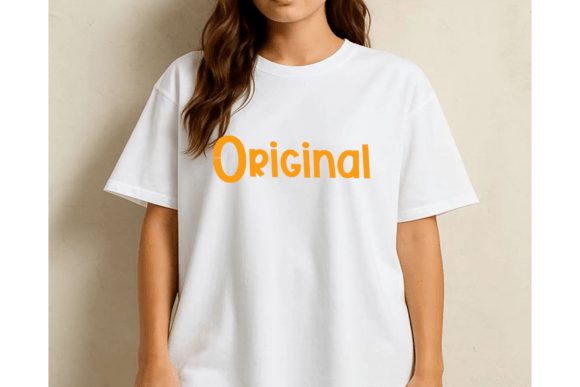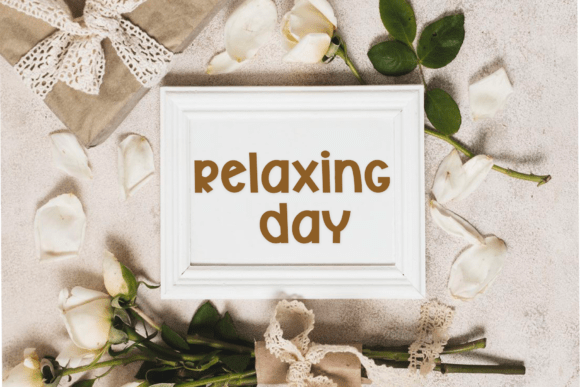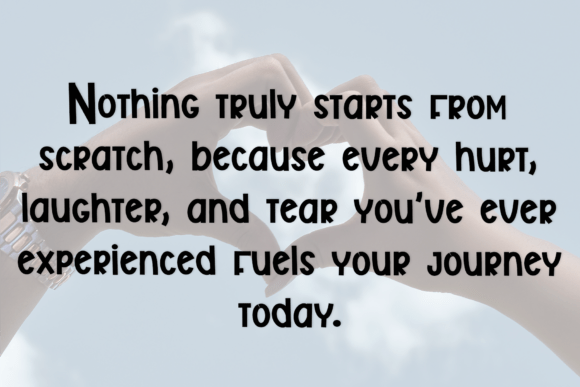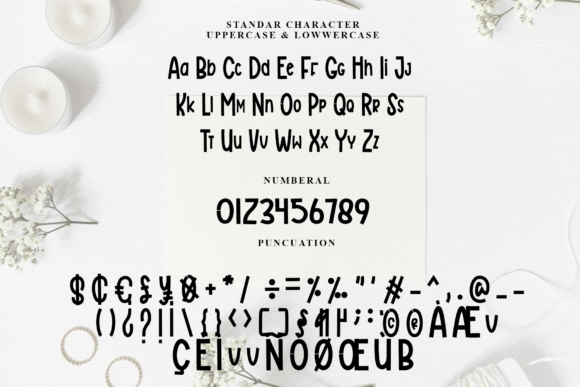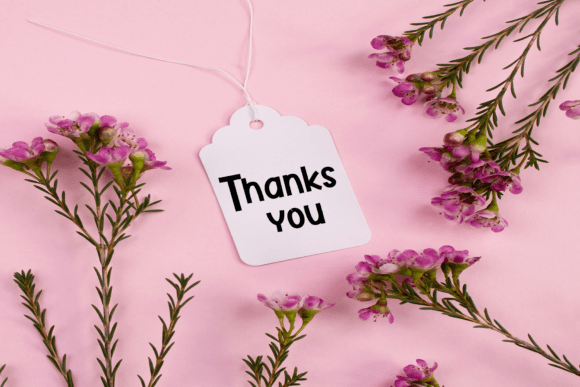
Babyboy Font: The Minimalist’s Dream Come True
In the world of typography, fonts play a crucial role in making or breaking a design. A font can elevate your project from ordinary to extraordinary, and that’s where Babyboy Font comes in. This minimal and neat font is a game-changer for designers and crafters looking to add a touch of simplicity and elegance to their creative projects.
What is Babyboy Font?
Babyboy Font is a modern, sans-serif font that boasts a clean and minimalist aesthetic. Its simplicity makes it incredibly versatile, allowing it to be paired with a wide range of design styles and projects. Whether you’re working on a logo, branding materials, or digital content, Babyboy Font is the perfect choice for those who appreciate the beauty of minimalism.
Key Features of Babyboy Font
- Minimalist Design: Babyboy Font features a sleek and uncluttered design that exudes simplicity and sophistication.
- High Versatility: Its neutral style makes it easy to pair with various design elements, ensuring that your project stands out without overpowering it.
- Excellent Legibility: The font’s clear and concise letters ensure that your text is easy to read, making it perfect for both digital and print materials.
- Wide Range of Applications: From logos and branding to social media graphics and website content, Babyboy Font can be used in an incredibly large set of projects.
Benefits of Using Babyboy Font
So, why should you choose Babyboy Font for your next project? Here are just a few benefits of incorporating this amazing font into your design:
- Enhanced Visual Appeal: Babyboy Font adds a touch of modernity and sophistication to your design, making it more visually appealing to your audience.
- Improved Brand Consistency: With its clean and minimalist design, Babyboy Font helps to create a consistent brand image that resonates with your target audience.
- Boosted Creativity: The font’s versatility and simplicity make it an excellent choice for creative projects, allowing you to experiment with different design ideas and concepts.
How to Use Babyboy Font in Your Projects
Using Babyboy Font in your projects is easy and straightforward. Here are a few tips to get you started:
- Pair it with Other Fonts: Experiment with different font combinations to create a unique and visually appealing design.
- Adjust Font Sizes: Play with font sizes to create visual hierarchy and emphasize important information.
- Use it in Digital and Print Materials: Babyboy Font is suitable for both digital and print materials, making it a great addition to your design toolkit.
In conclusion, Babyboy Font is a fantastic addition to any designer’s or crafter’s toolkit. Its minimalist design, versatility, and excellent legibility make it perfect for a wide range of projects. Whether you’re looking to create a stunning logo, branding materials, or digital content, Babyboy Font is sure to elevate your design and make it stand out. So why not give it a try and see the difference it can make in your creative projects?